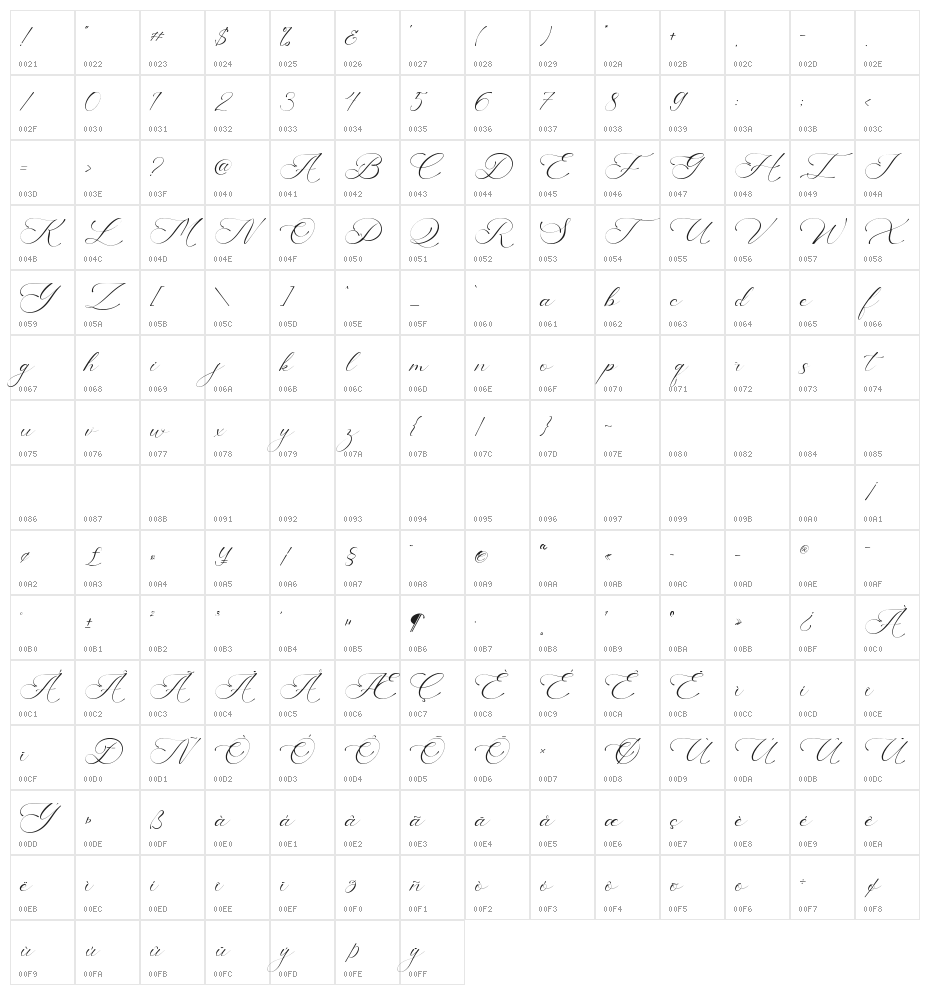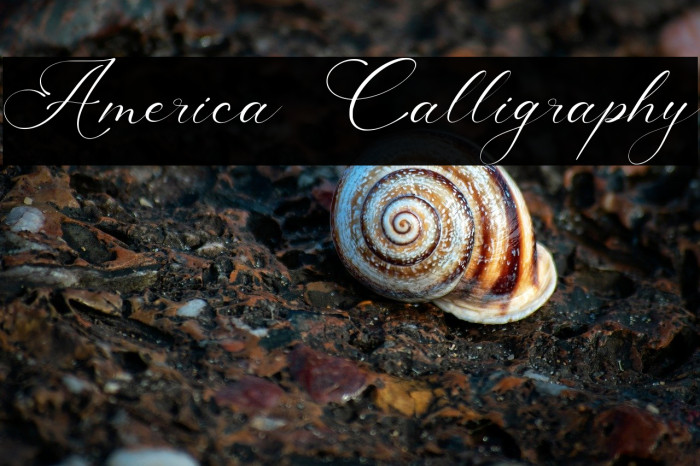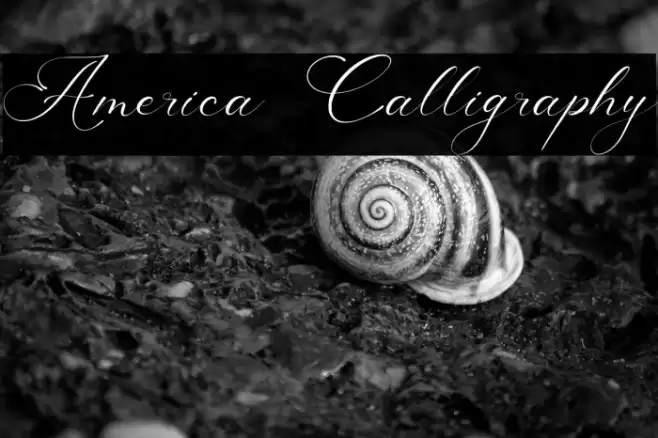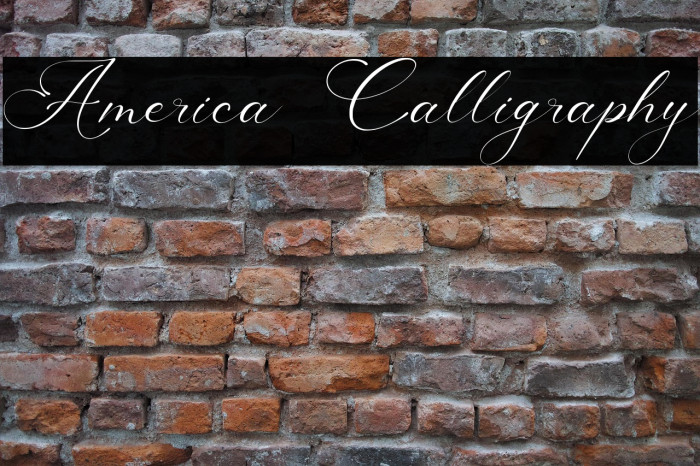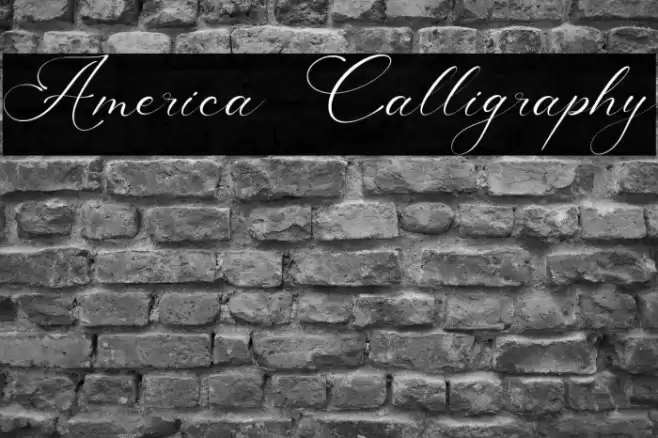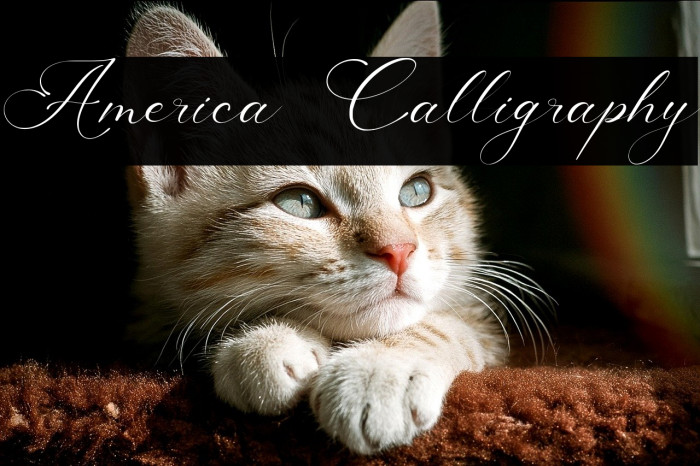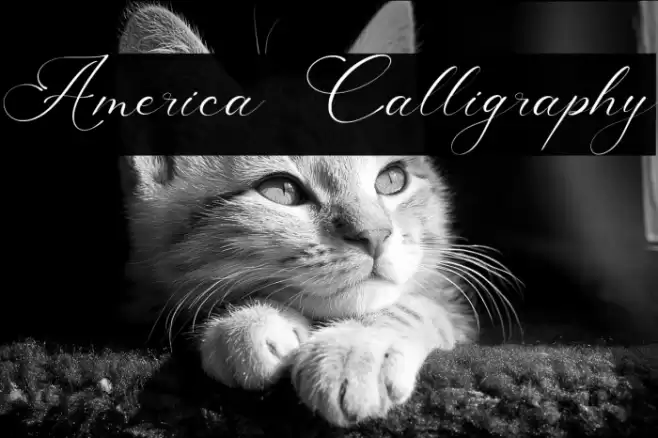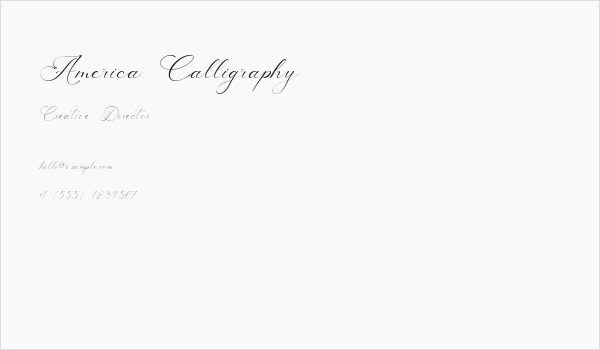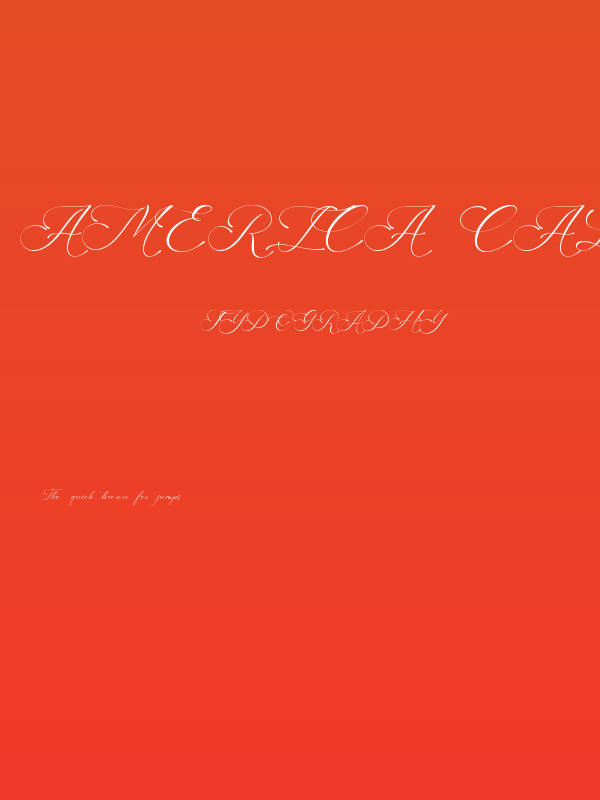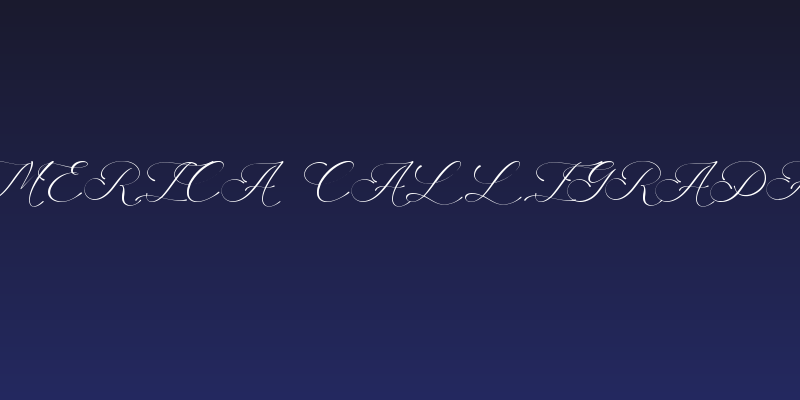
America Calligraphy Font
America Calligraphy Description
This elegant calligraphy font features flowing, interconnected strokes that create a sense of movement and grace. The uppercase letters are ornate and slightly larger, with intricate loops and flourishes that add a touch of sophistication. The lowercase letters maintain the same fluidity, with a more subtle approach to embellishments, making them highly readable. The numerals are consistent with the overall style, featuring gentle curves and a balanced weight. Special characters are thoughtfully designed to complement the alphabet, ensuring a cohesive look throughout. This font exudes a classic and timeless appeal, perfect for projects that require a touch of elegance and refinement.